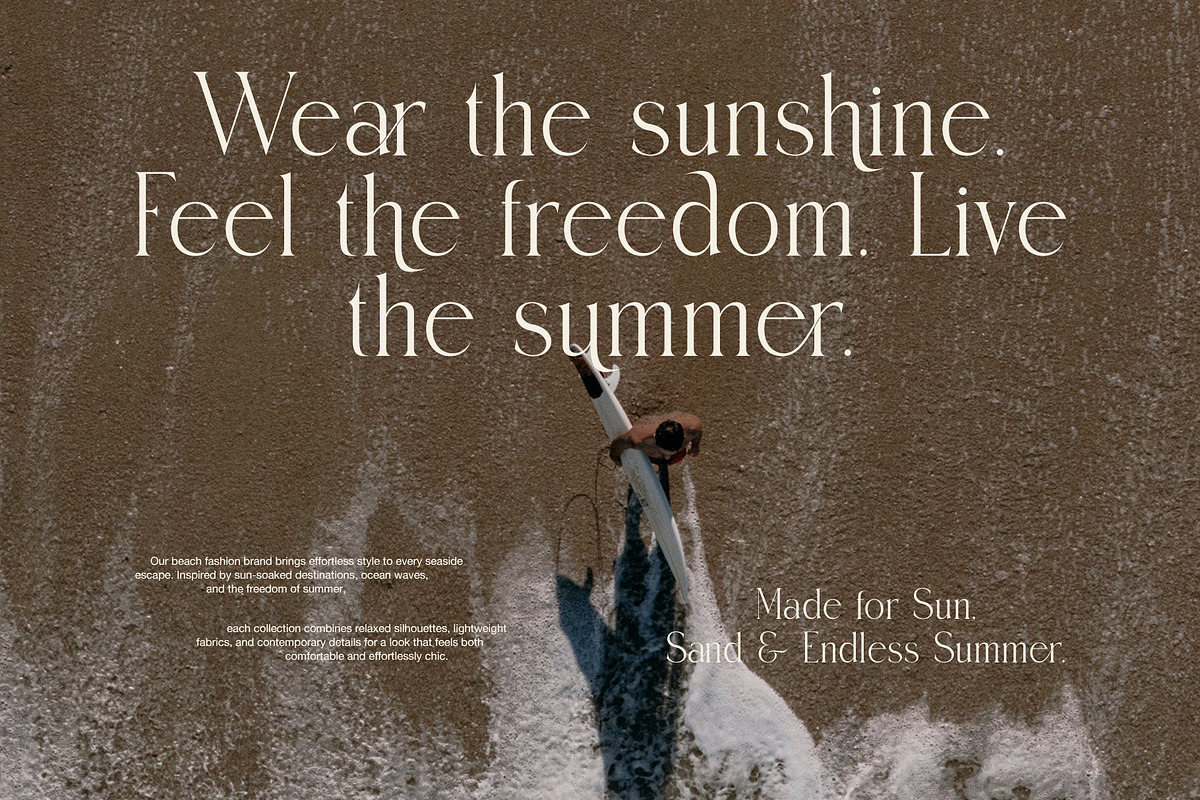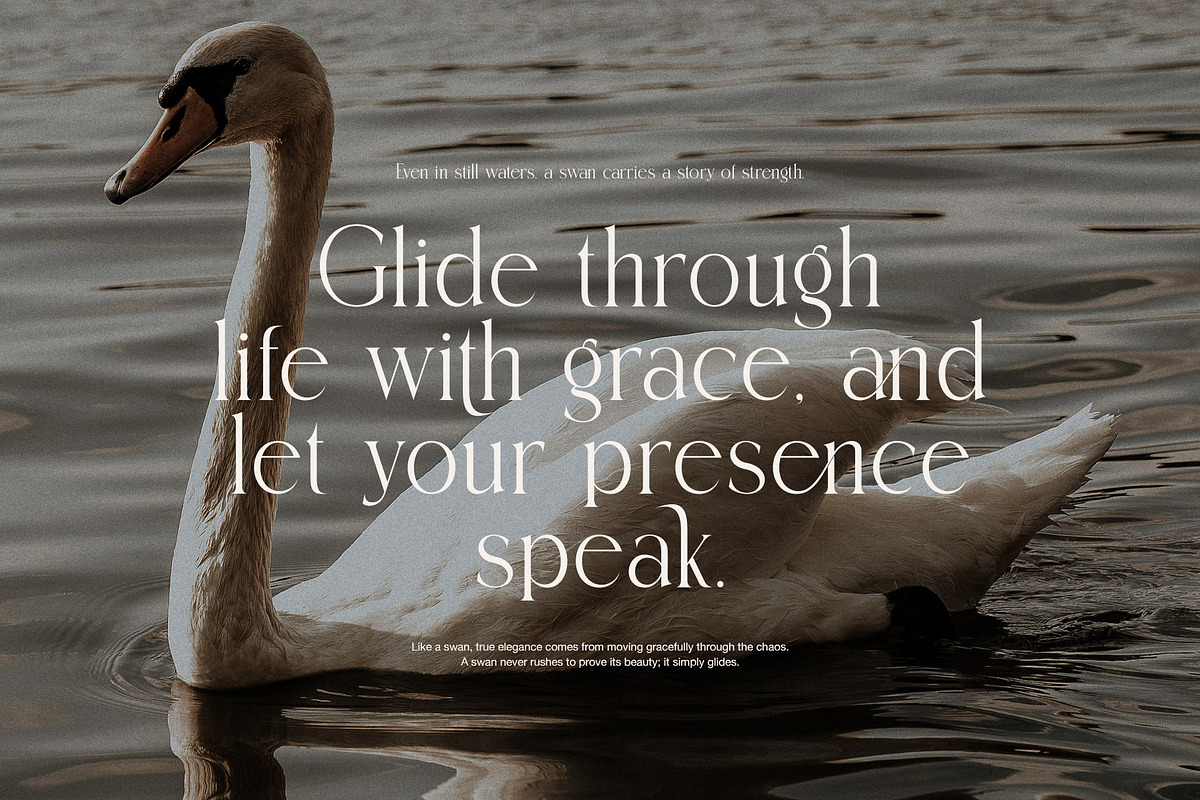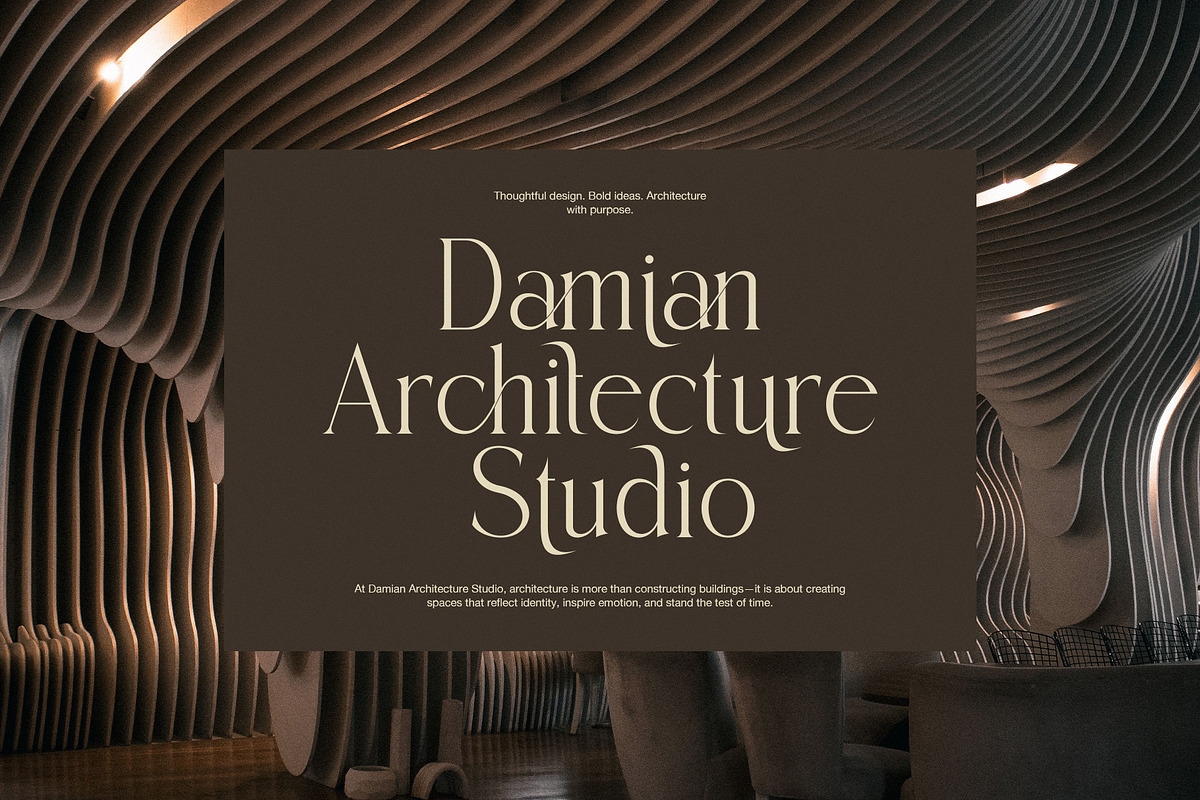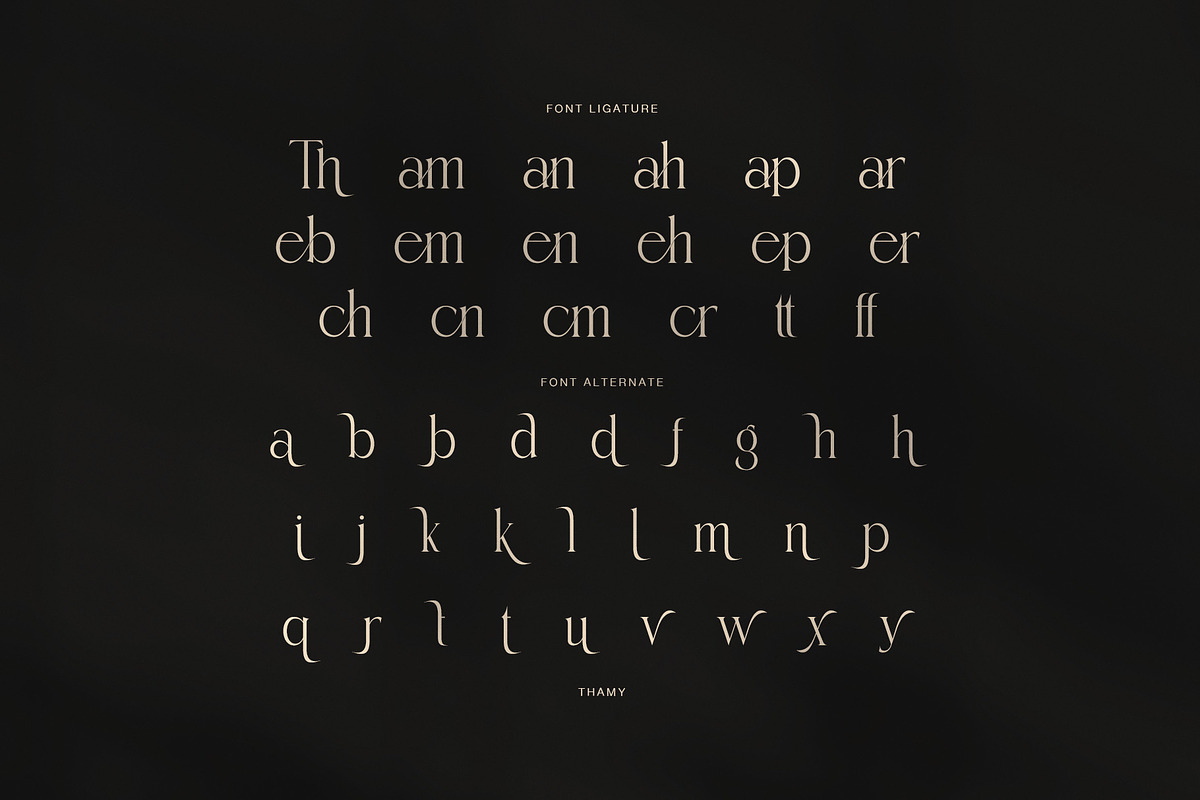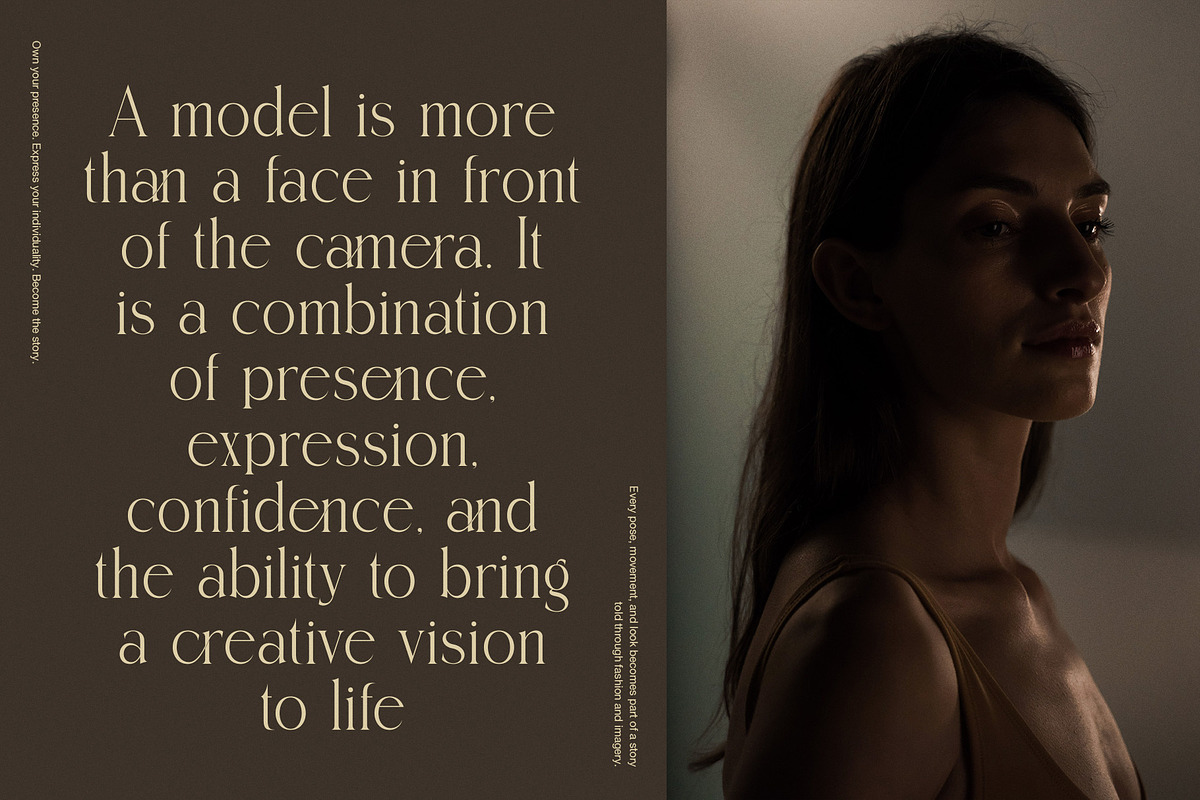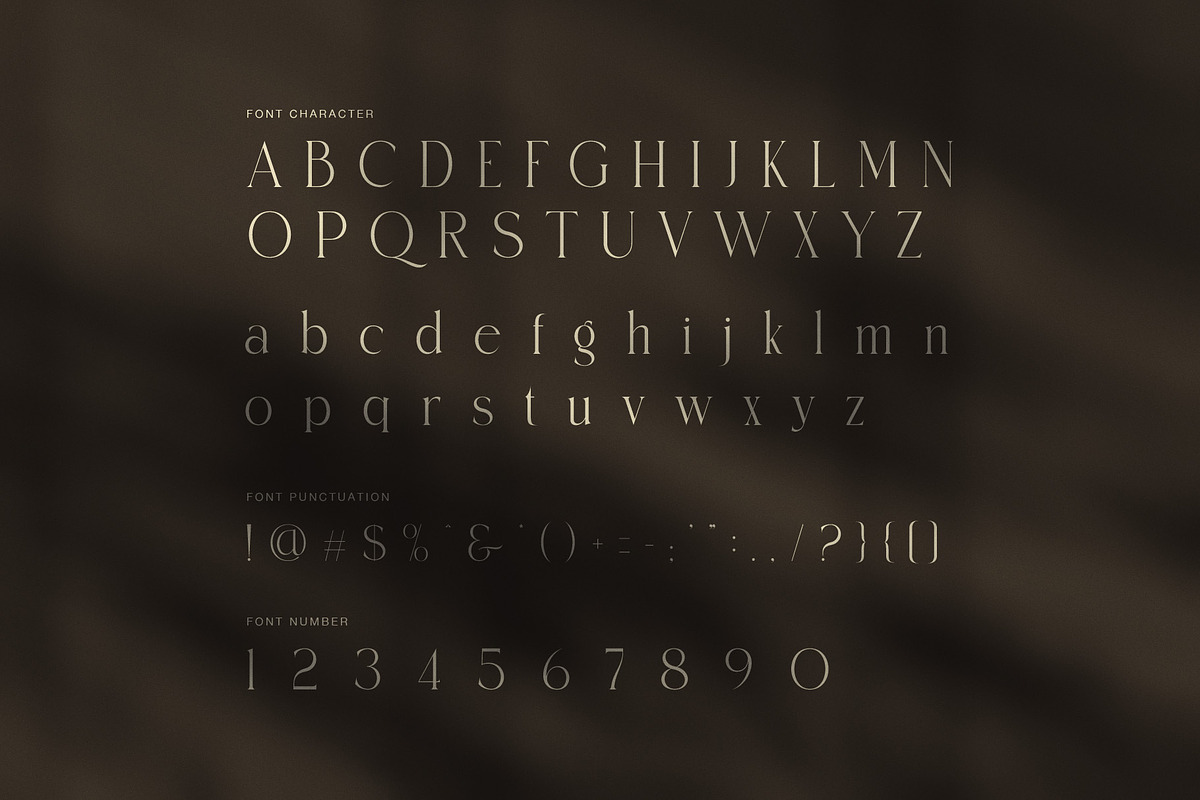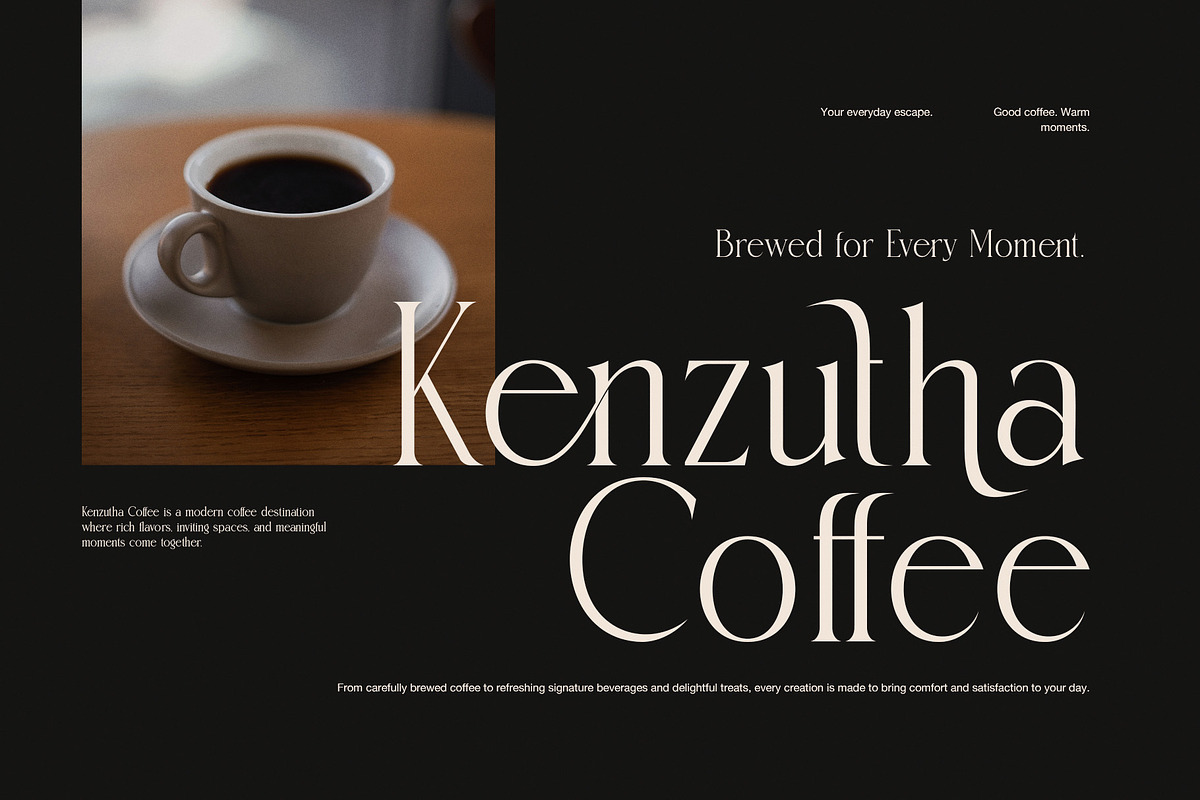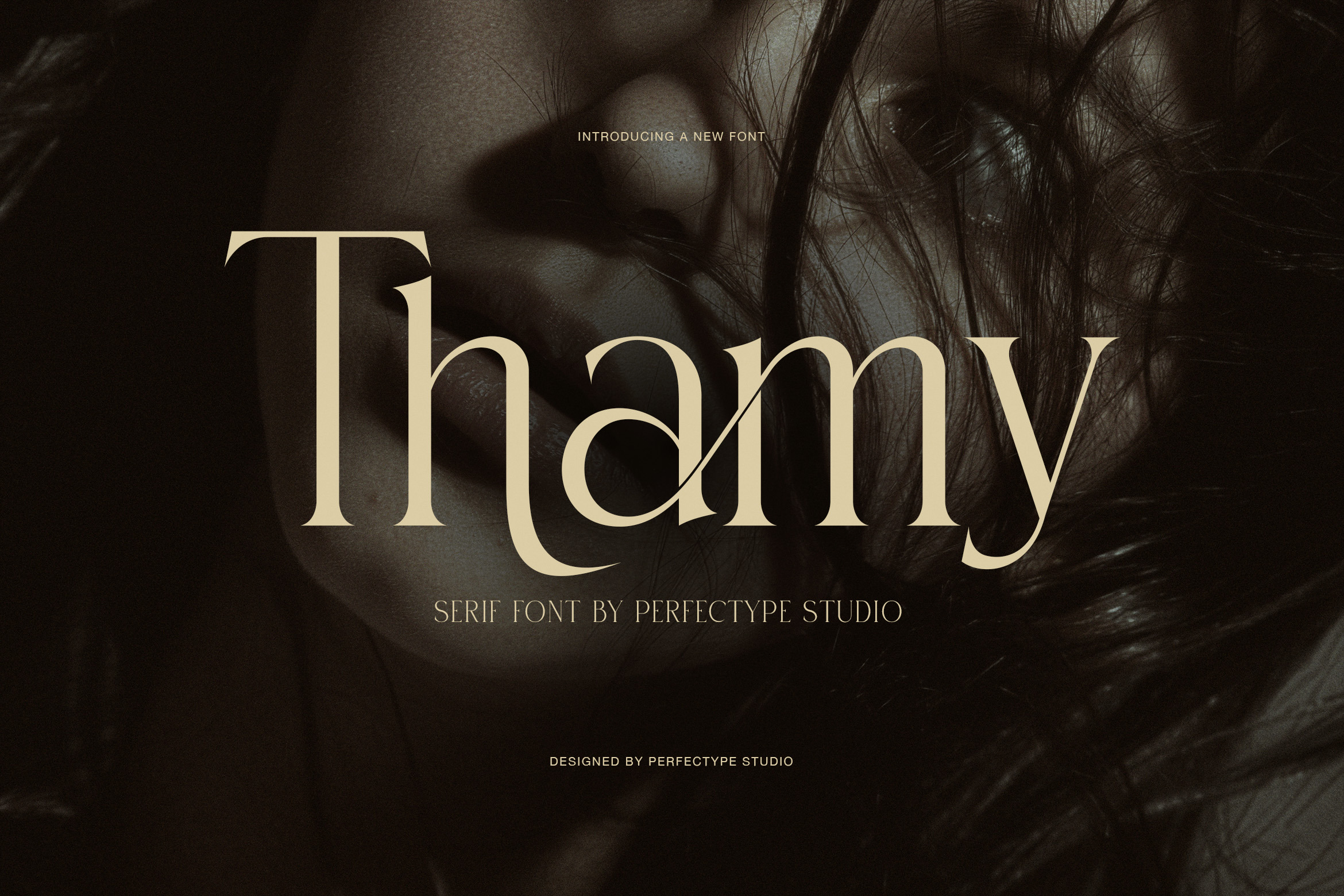
Thamy Elegant Serif Font
Thamy is an elegant high-contrast serif font made for fashion, beauty, branding, and refined editorial design. With delicate hairlines, strong vertical strokes, and graceful curves, it brings a polished look to both modern and classic layouts. At the same time, its clean proportions keep the letters easy to read when used at display sizes.
The design has a clear fashion serif character. Thin strokes create a light and airy feel, while the stronger stems add structure and presence. In addition, several letterforms have distinctive details that give the typeface a memorable voice. The lowercase set feels refined and expressive, making Thamy a strong choice for stylish headlines, names, and short statements.
Thamy is especially suitable for:
Fashion logos and luxury branding
Beauty, skincare, and cosmetic packaging
Editorial layouts and magazine covers
Photography and creative portfolios
Coffee shops and lifestyle brands
Architecture and interior design
Wedding stationery and invitations
Posters, campaigns, and social media graphics
Product labels and premium packaging
Moreover, the font includes a useful collection of ligatures and alternate characters. These features allow designers to change the rhythm of selected words and create a more personal result. Therefore, Thamy can move from a clean editorial style to a more expressive fashion look without losing its core identity.